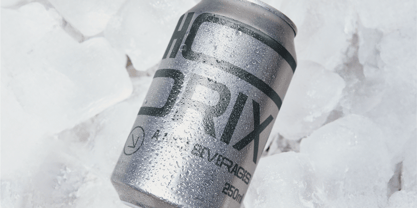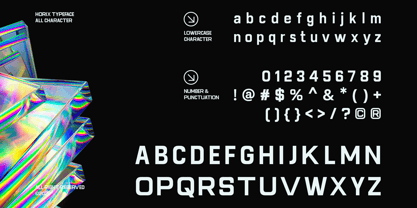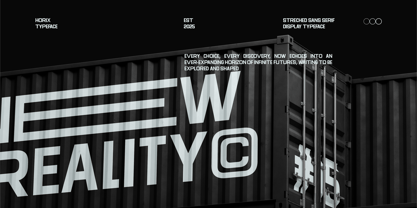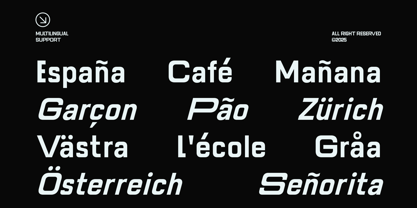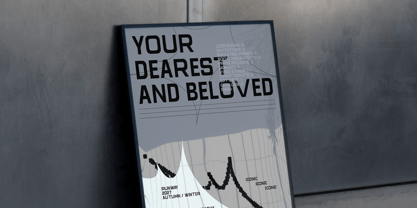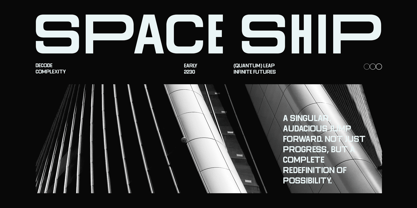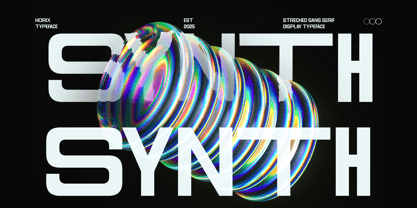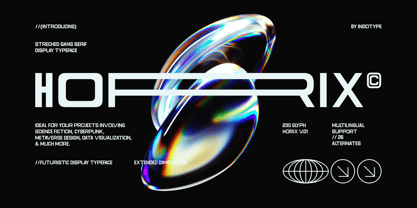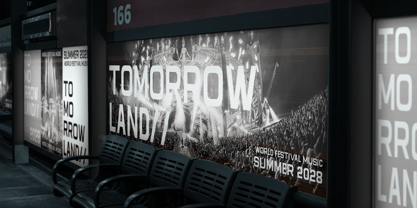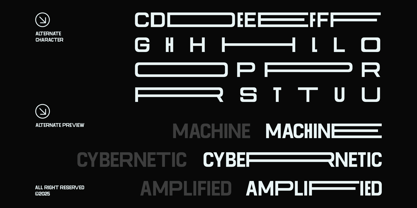
IT Horix
by Indotype
The IT Horix Font Family was designed by Dede Kurniawan and published by Indotype. IT Horix contains 2 styles and family package options. More about this family
Horix is a stretched sans serif futuristic display font designed to push the boundaries of typography. With its elongated forms, sharp precision, and high-tech aesthetic, Horix is perfect for projects that explore the edge of innovation. This typeface brings a futuristic tone, making it ideal for science fiction themes, cyberpunk visuals, metaverse design, gaming interfaces, technology branding, data visualization, and experimental layouts. Its extended proportions and unique alternates give designers the flexibility to create striking, forward-looking compositions.
Featuring 230 glyphs, 26 stylistic alternates, and multilingual support, Horix is built to perform across diverse platforms and languages. Designed by Indotype in 2025, Horix is more than a font—it’s a portal into the future of design.